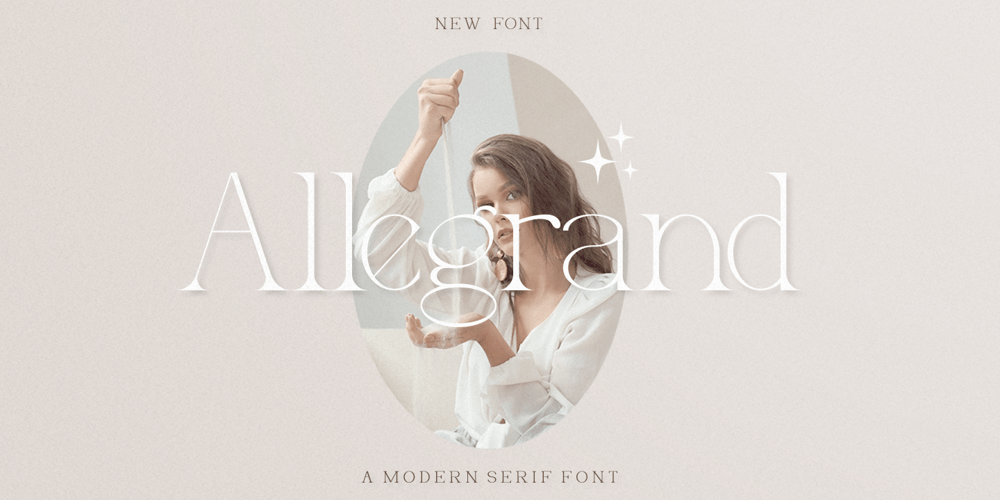
Allegrand Font Family was designed by Hayinah and published by Rockboys Studio. Allegrand contains 1 styles and family package options. Allegrand is a stylish and elegant serif font. Fall in love with its incredibly distinct and timeless style and use it to create spectacular designs!